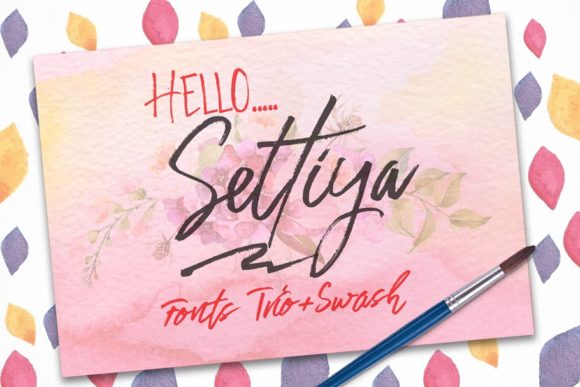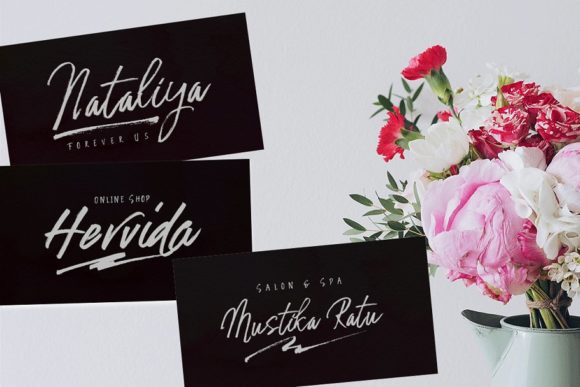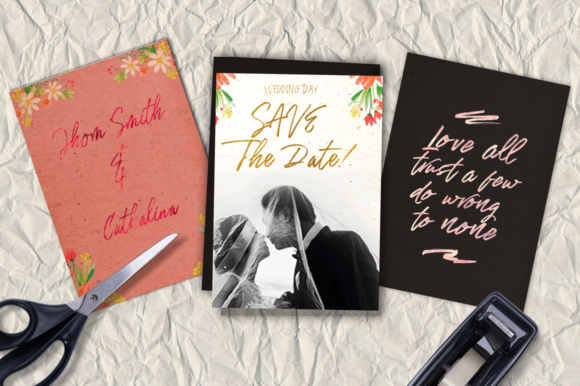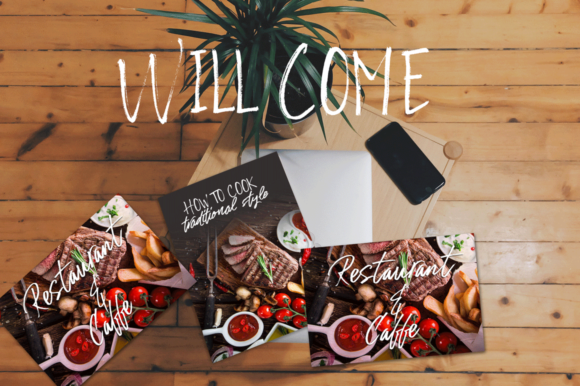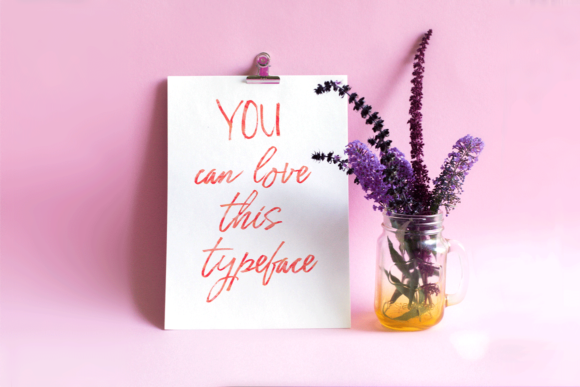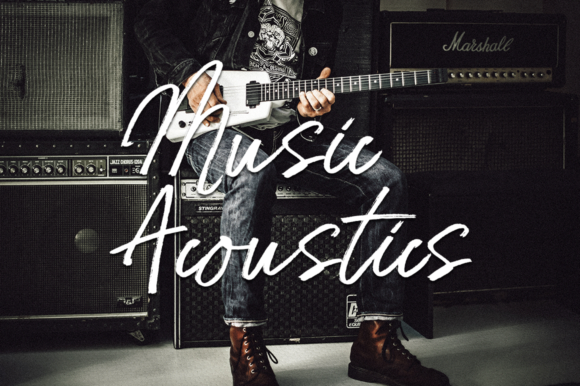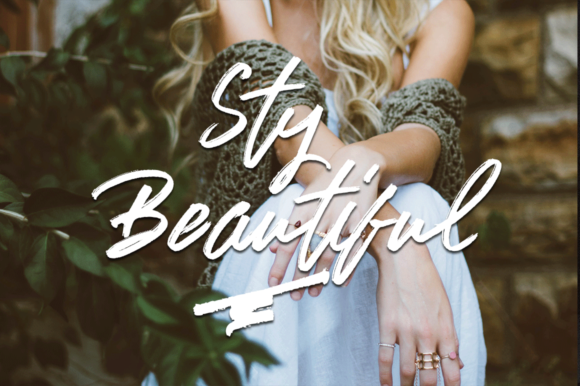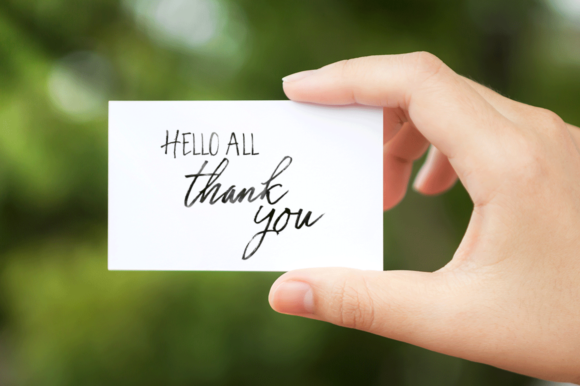
Settiya Font
About Settiya Font
Settiya is a casual, fun handwritten font, created by using a brush pen. Clean and a little bit quirky, this font is the perfect fit for all of your logos, branding, social media, and crafty DIY projects.